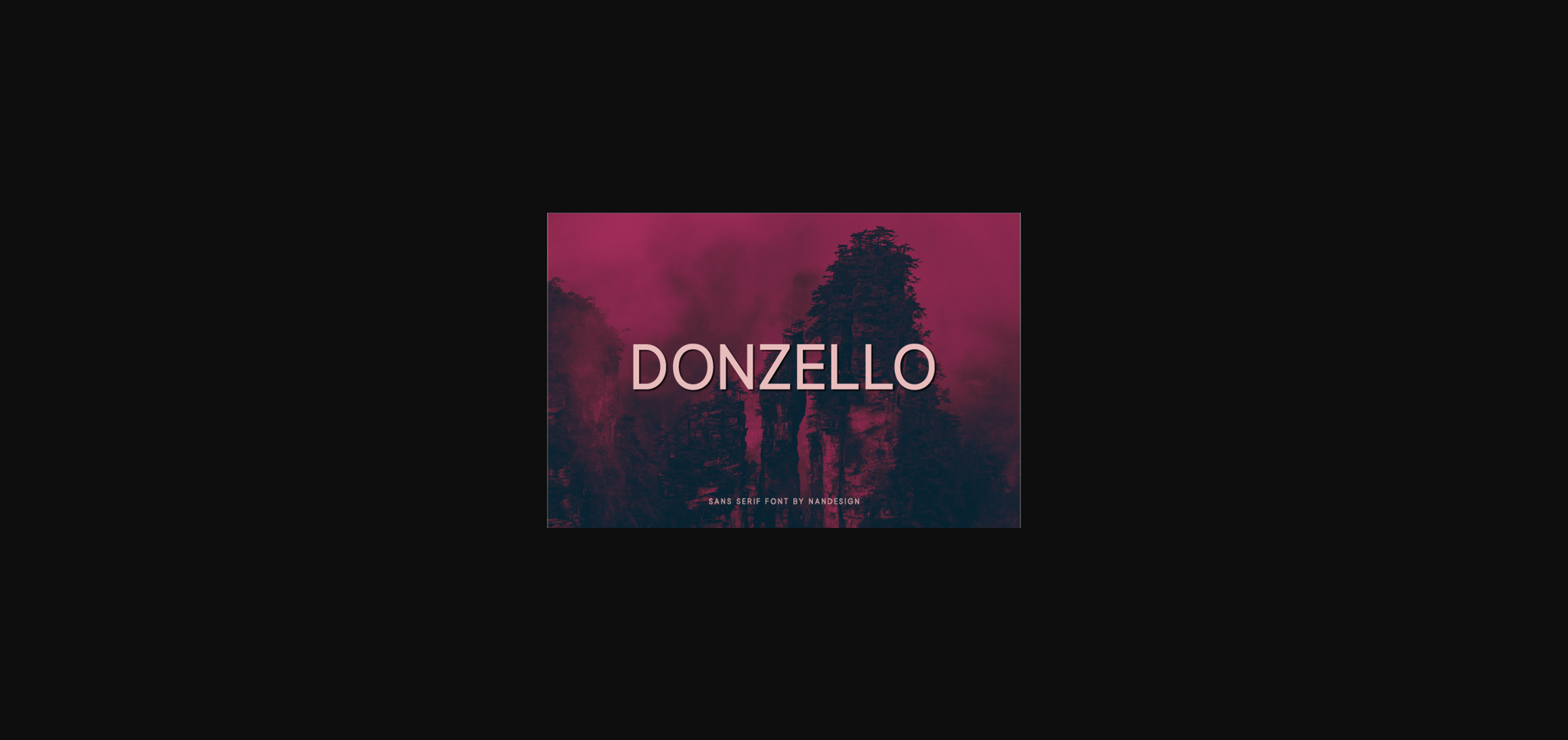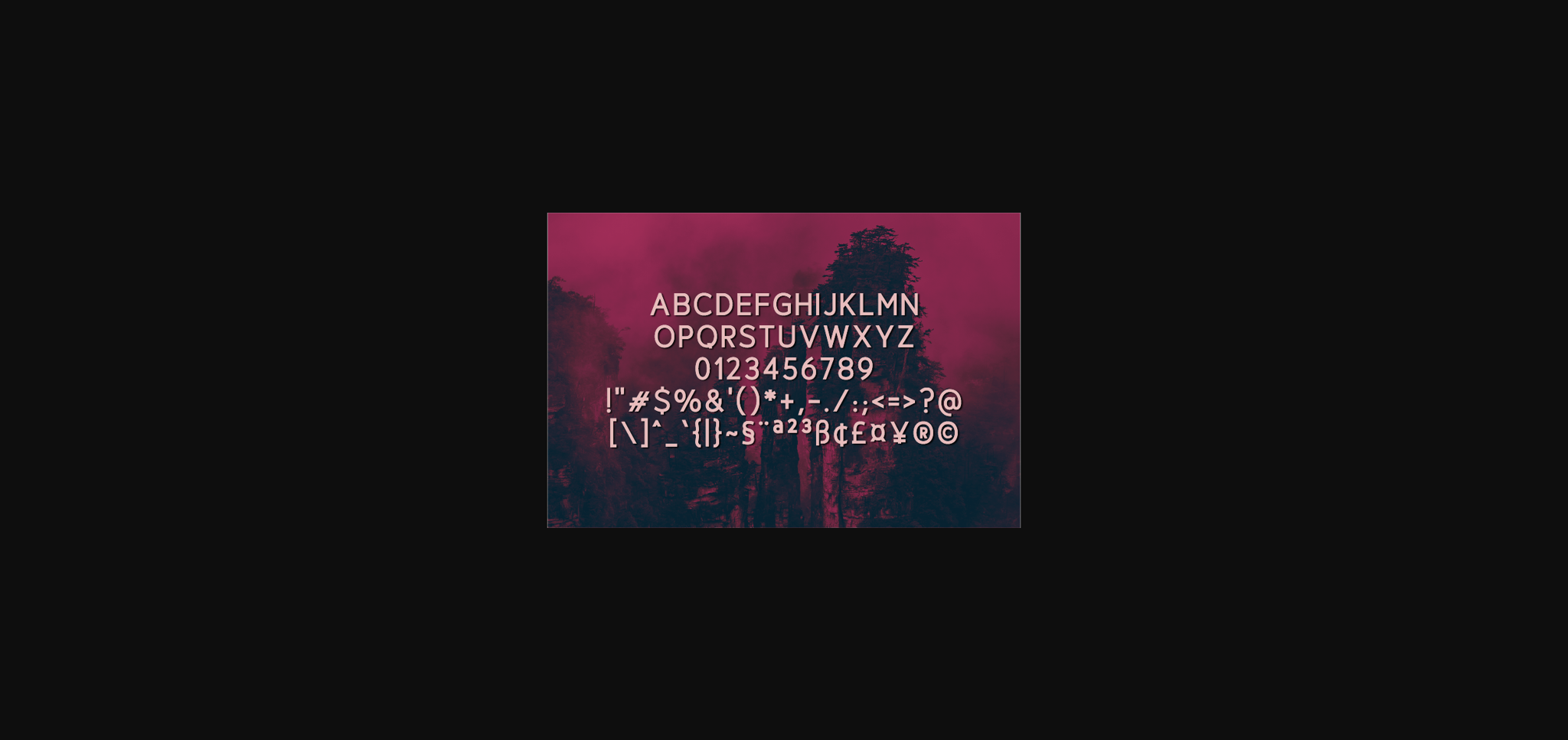
About Donzello Font
Donzello is a simple and natural sans serif font. It can be used for various purposes such as logos, invitations, headings, t-shirts, letterhead, signage, labels, news, posters, badges and so much more.